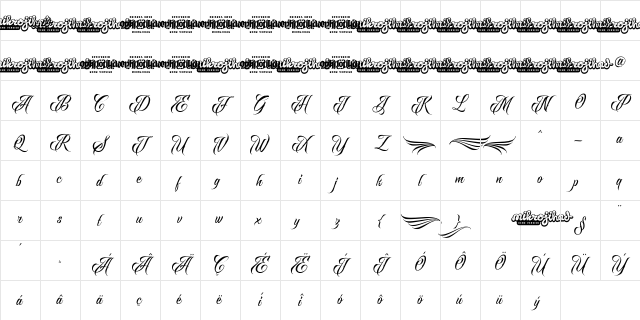
Raven Script DEMO Regular Free Font
Raven Script DEMO Regular
Foundry: Hendra Pratama (Mikrojihad)
Designer: Hendra Pratama AKA Mikrojihad
Design Context for Raven Script DEMO
Raven Script DEMO flows with the natural rhythm of handwritten lettering, making it ideal for designs that call for warmth and personal expression.
Font Pairing: Combine Raven Script DEMO with a simple geometric sans for maximum contrast - the tension between flowing curves and clean structure is a classic typographic pairing.
Pro Tip: Use Raven Script DEMO for short runs of text - names, titles, or taglines. Extended body copy in script faces tires the eye quickly.